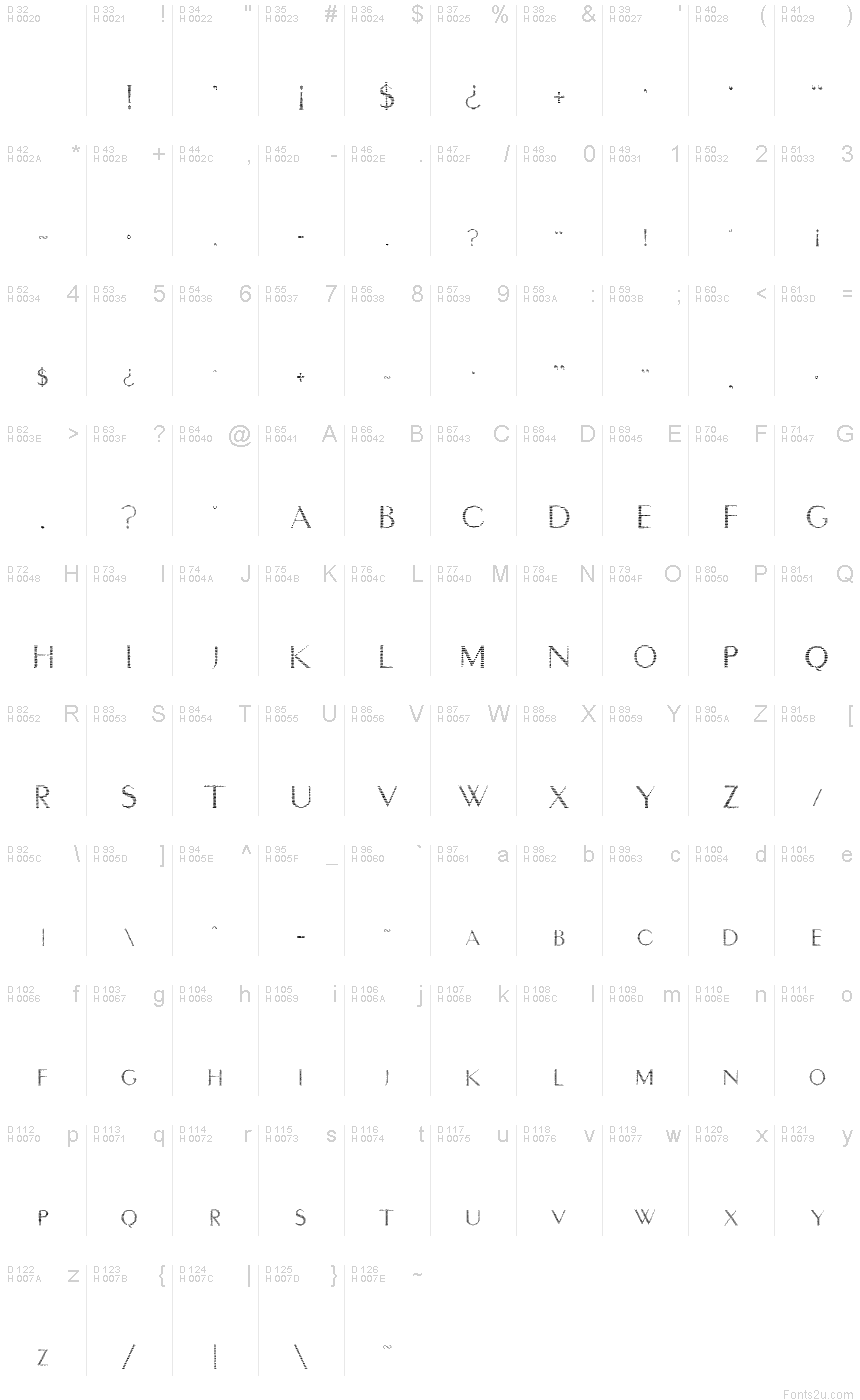
intimacy deux
Intimacy Deux font by Steven J. Lundeen is a free eroded display typeface that looks like tall sans letters scraped away by a misaligned photocopier. Each stroke breaks into horizontal stripes and grainy gaps, creating a flickering, half-erased texture that feels both mechanical and handmade. The spacing stays clean, so even with all the decay the words remain sharp and legible at large sizes.
Using Intimacy Deux, your titles instantly pick up a scratched, underground attitude that works beautifully for album covers, gig flyers, zines, thriller book jackets, protest posters, edgy packaging, and bold social media graphics. This free font shines when it’s huge and given room to breathe; pair it with a plain grotesque or geometric sans in smaller text to let the distressed stripes carry the visual drama.